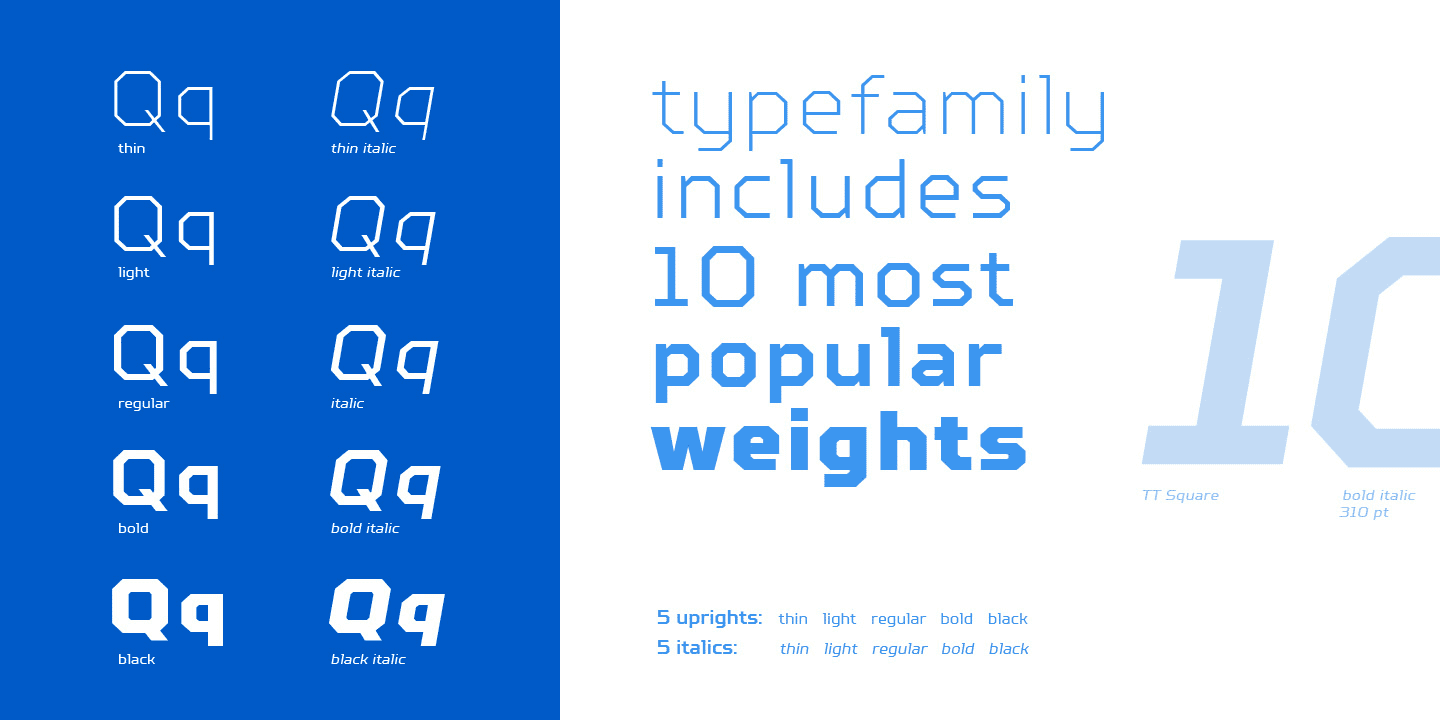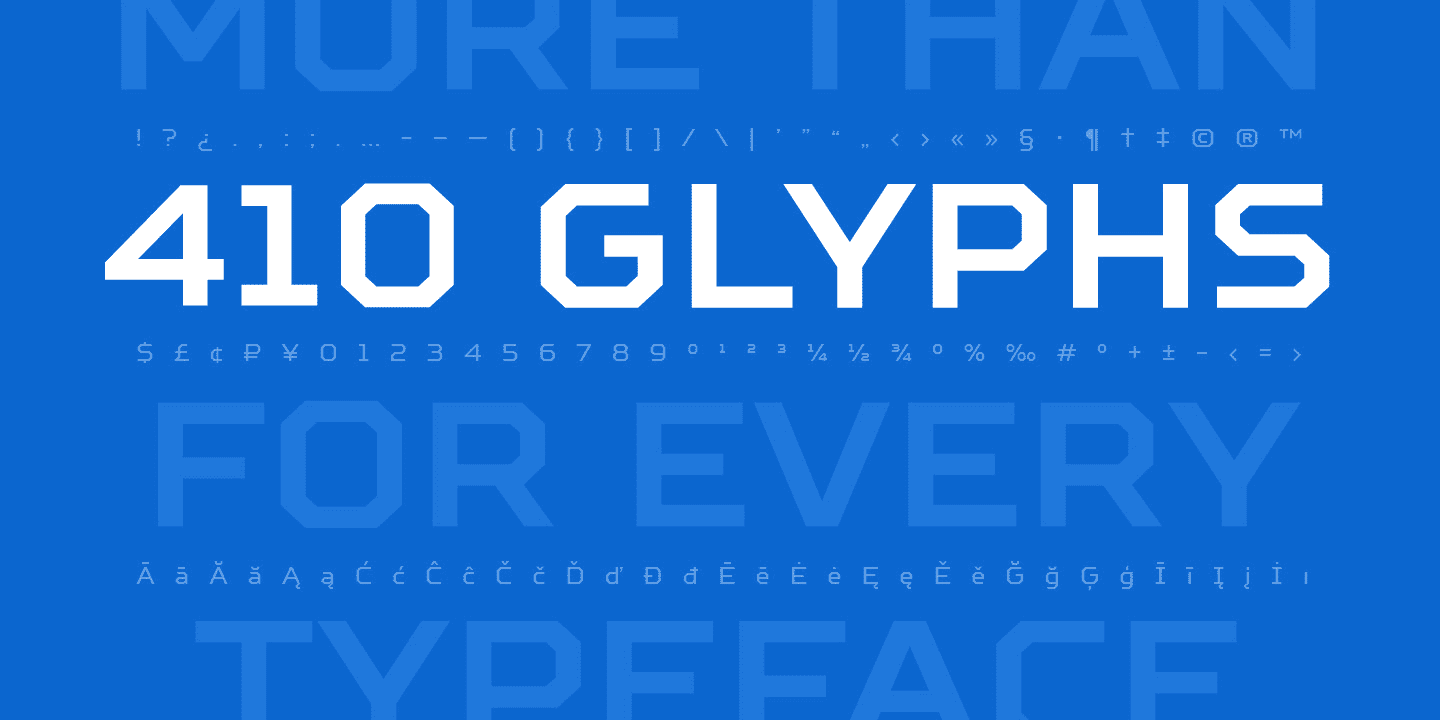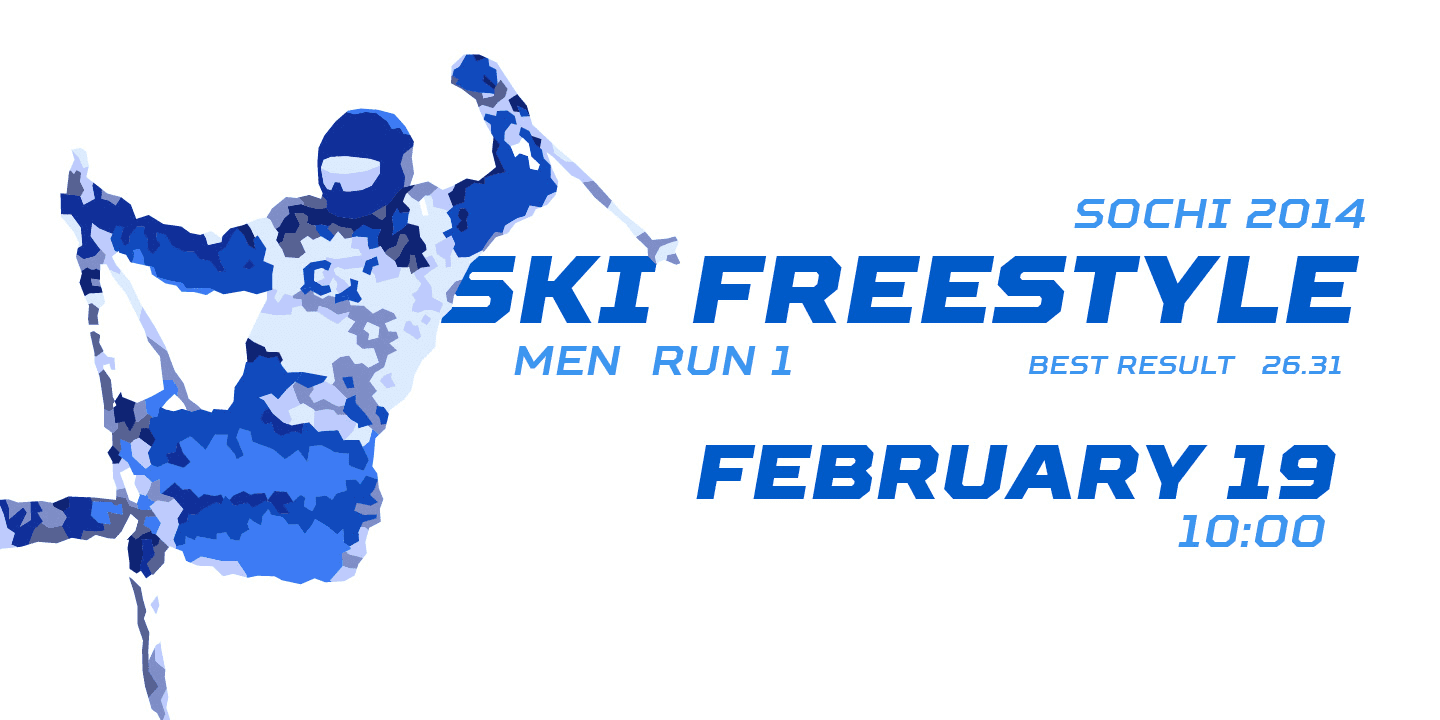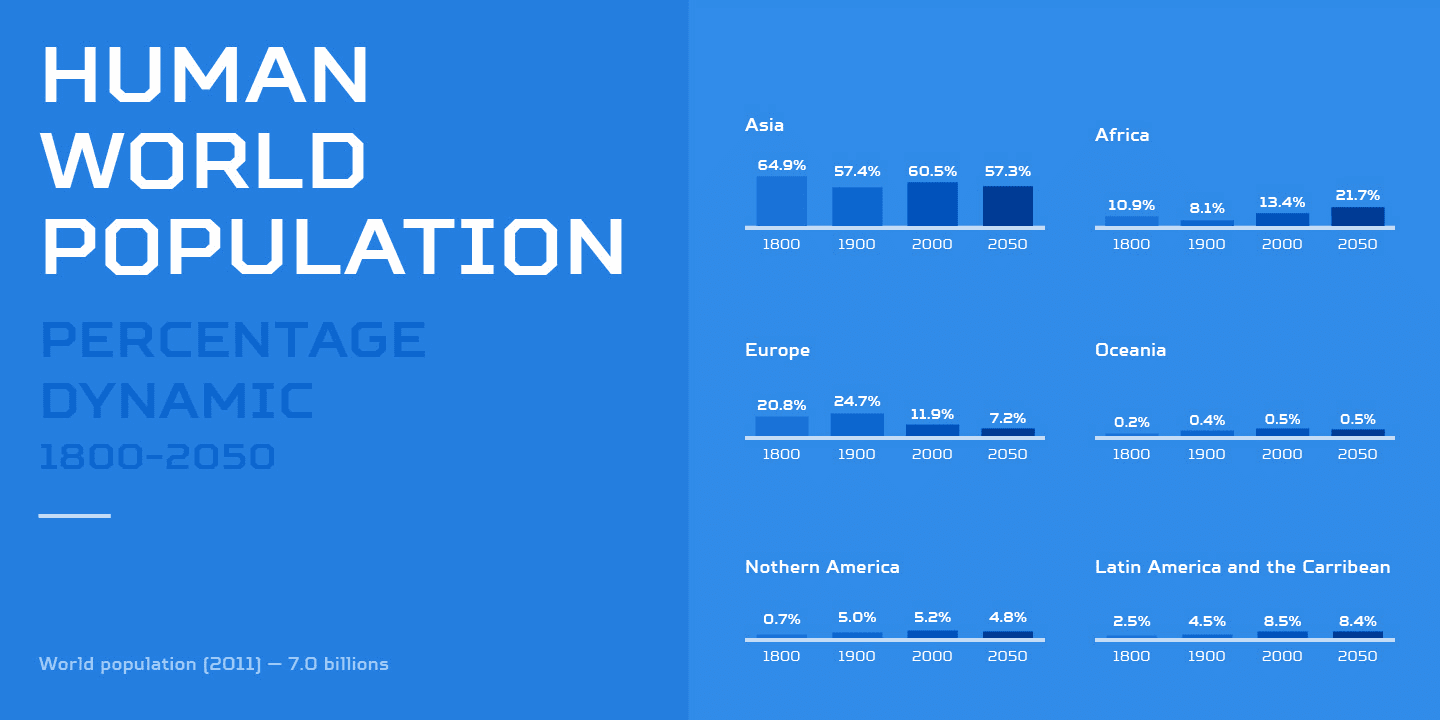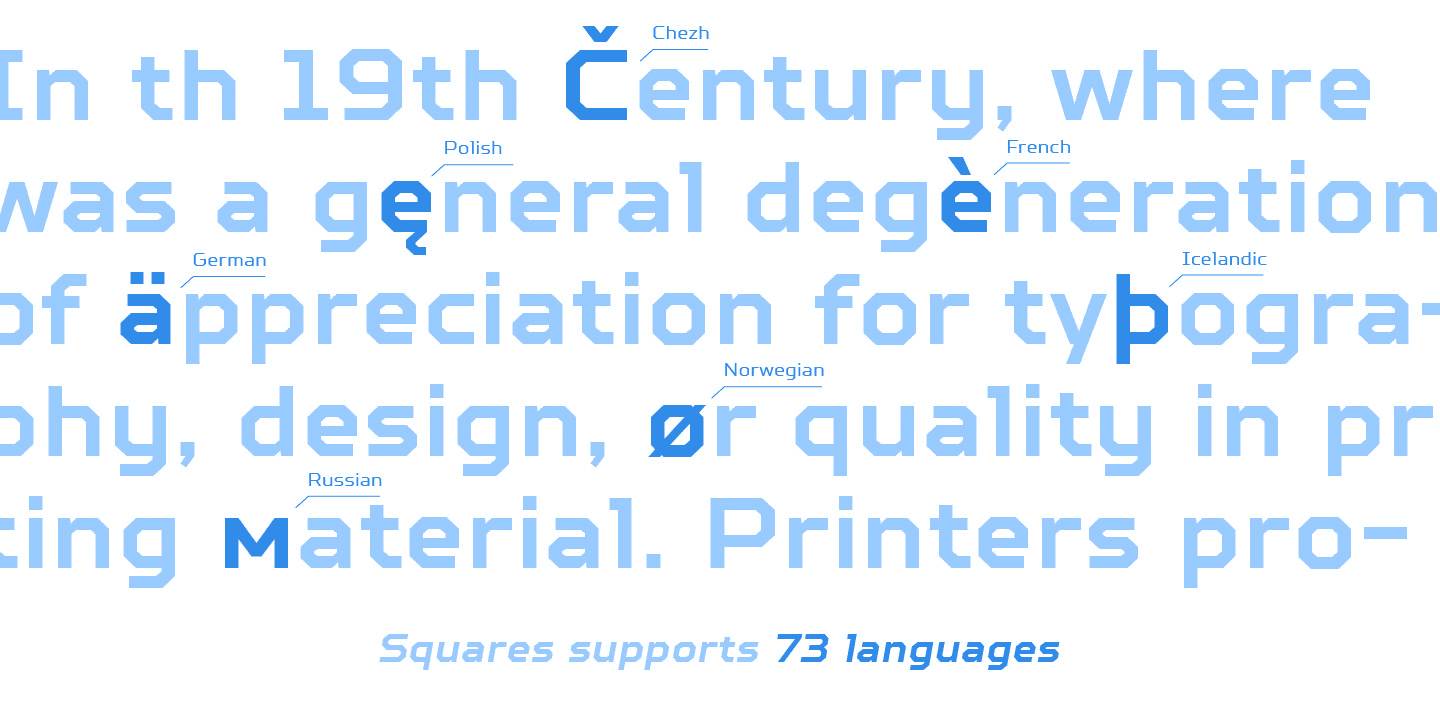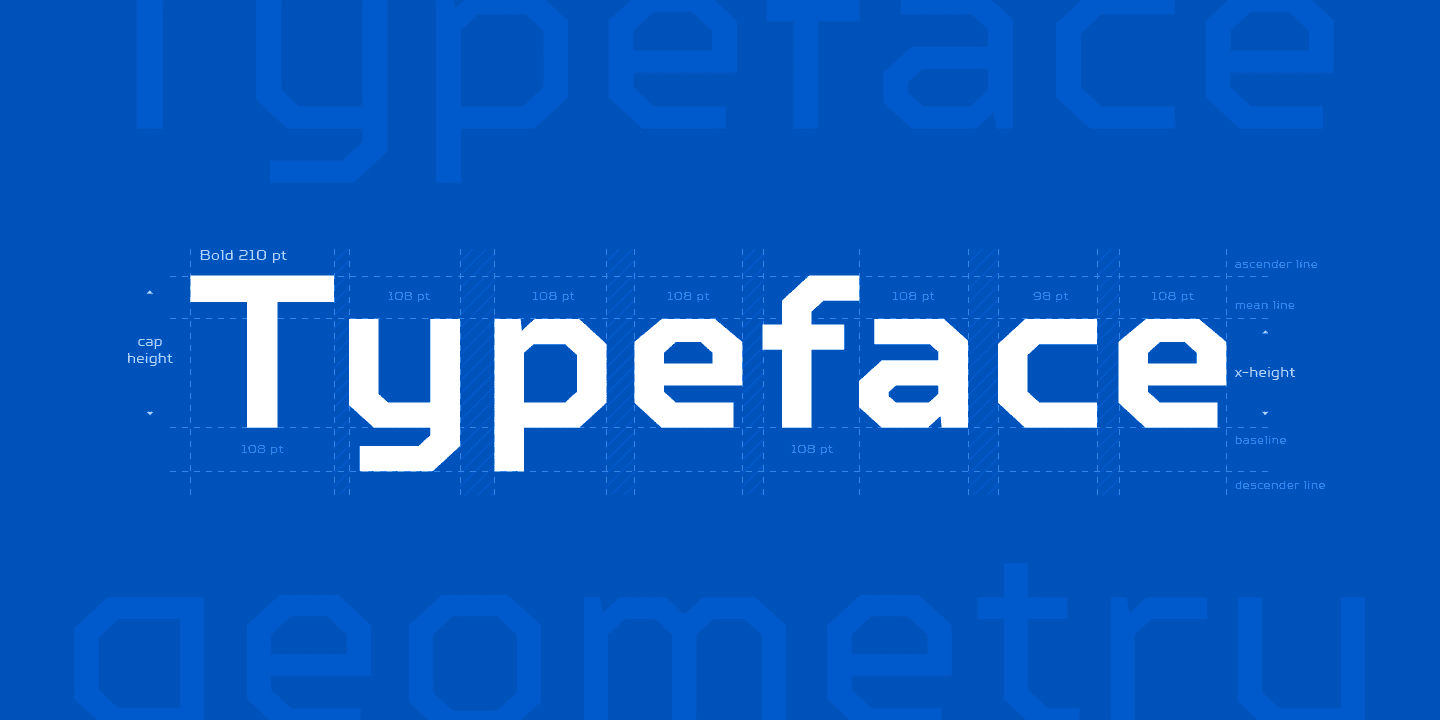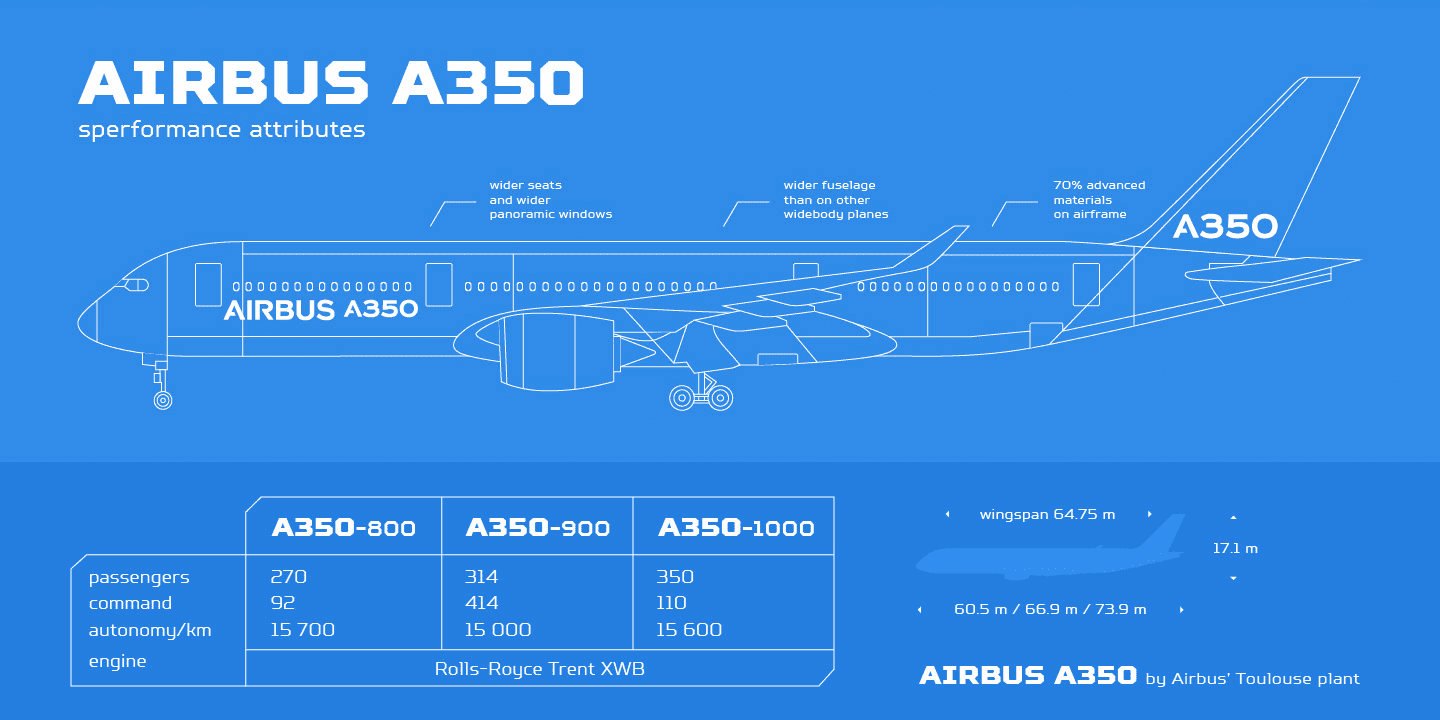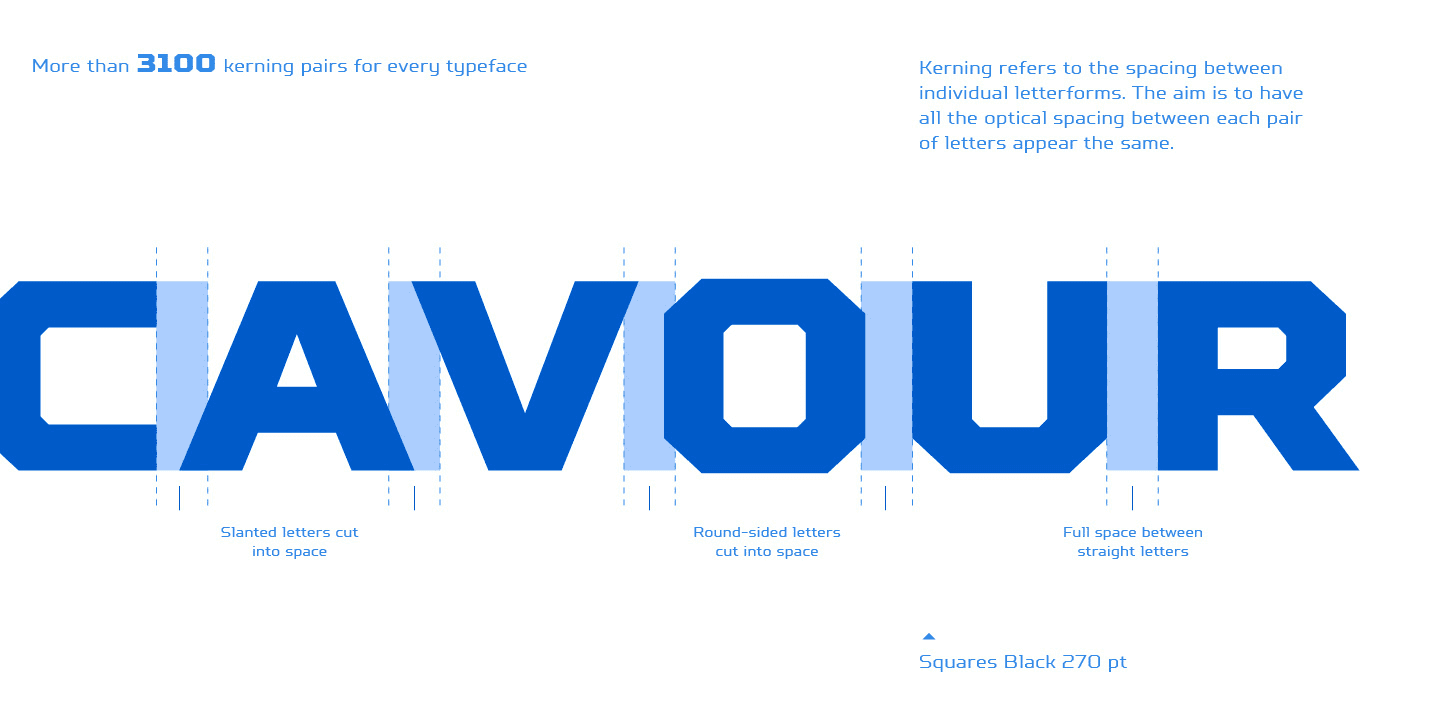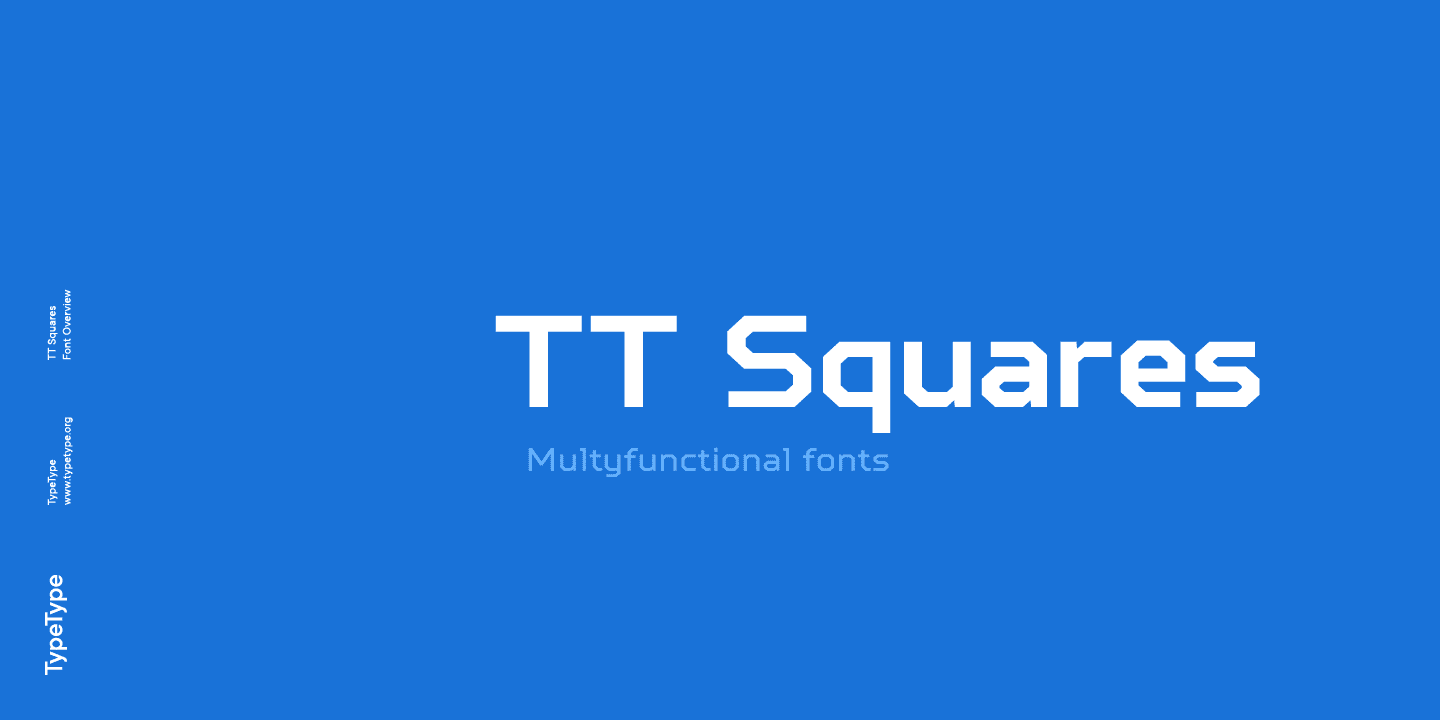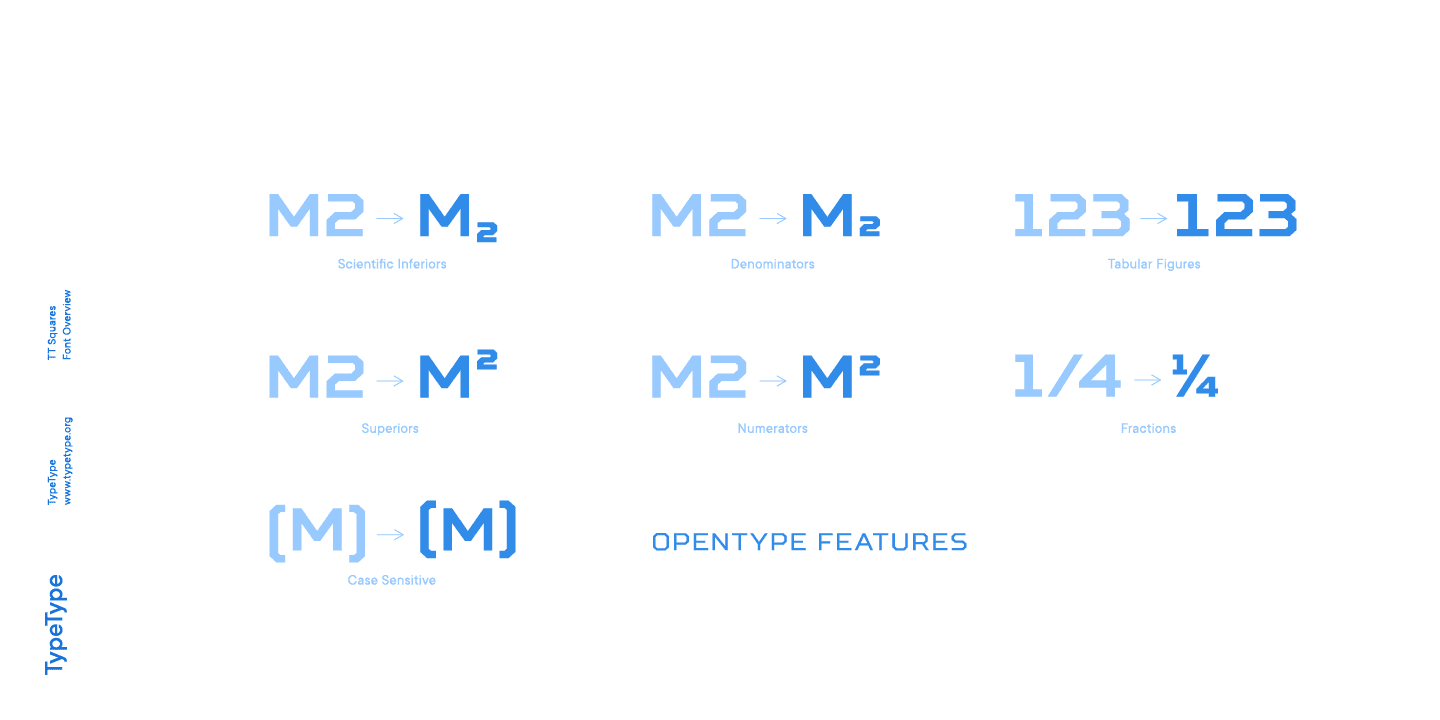
TT Squares Family (10 fonts)
Scope: interfaces, infographics, statistics, army, military theme, game design, interactive, future, robots, toys, packaging, interior design, progressive design, aircraft equipment, robotics, tank building, fishing, packaging, exhibitions and events
Optimized for the websites, mobile applications, and printing materials.